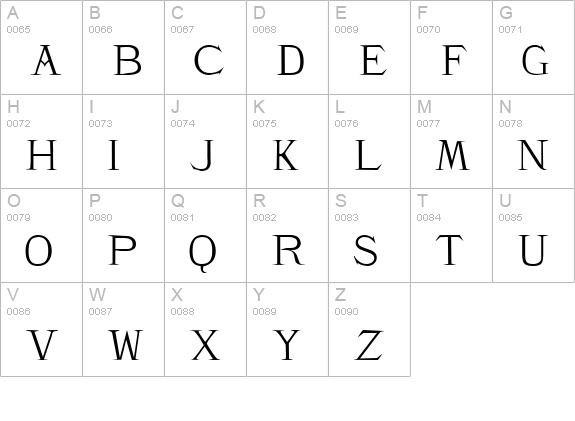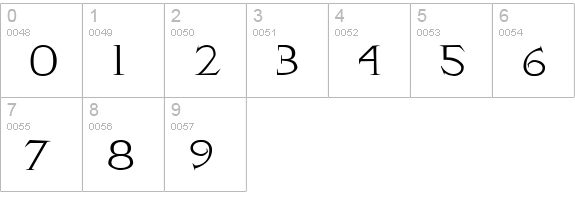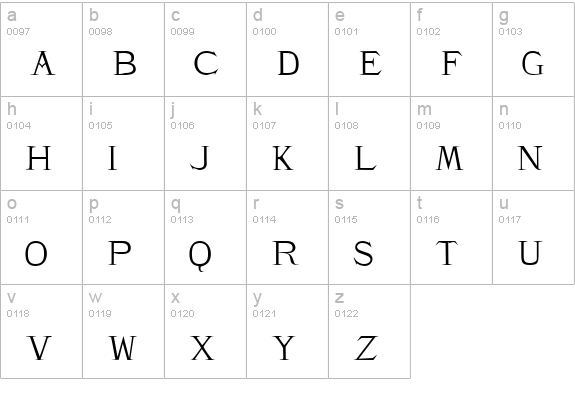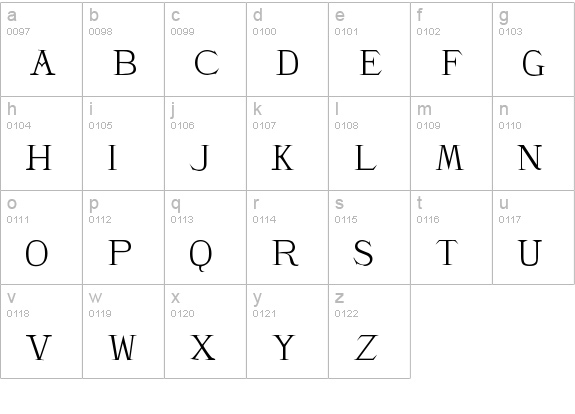
Chambord Font Details
Chambord font is a versatile and elegant typeface that exudes sophistication and charm. Its intricate details and graceful curves make it a perfect choice for a variety of design projects, from invitations to branding and beyond. This exquisite font strikes the perfect balance between classic and modern, making it a timeless addition to any designer's toolkit. Best of all, Chambord font is available for free download at FontsMarket.com, allowing designers to access this stunning typeface without any cost. With its unique style and effortless beauty, Chambord font is sure to elevate any design project and leave a lasting impression on viewers.